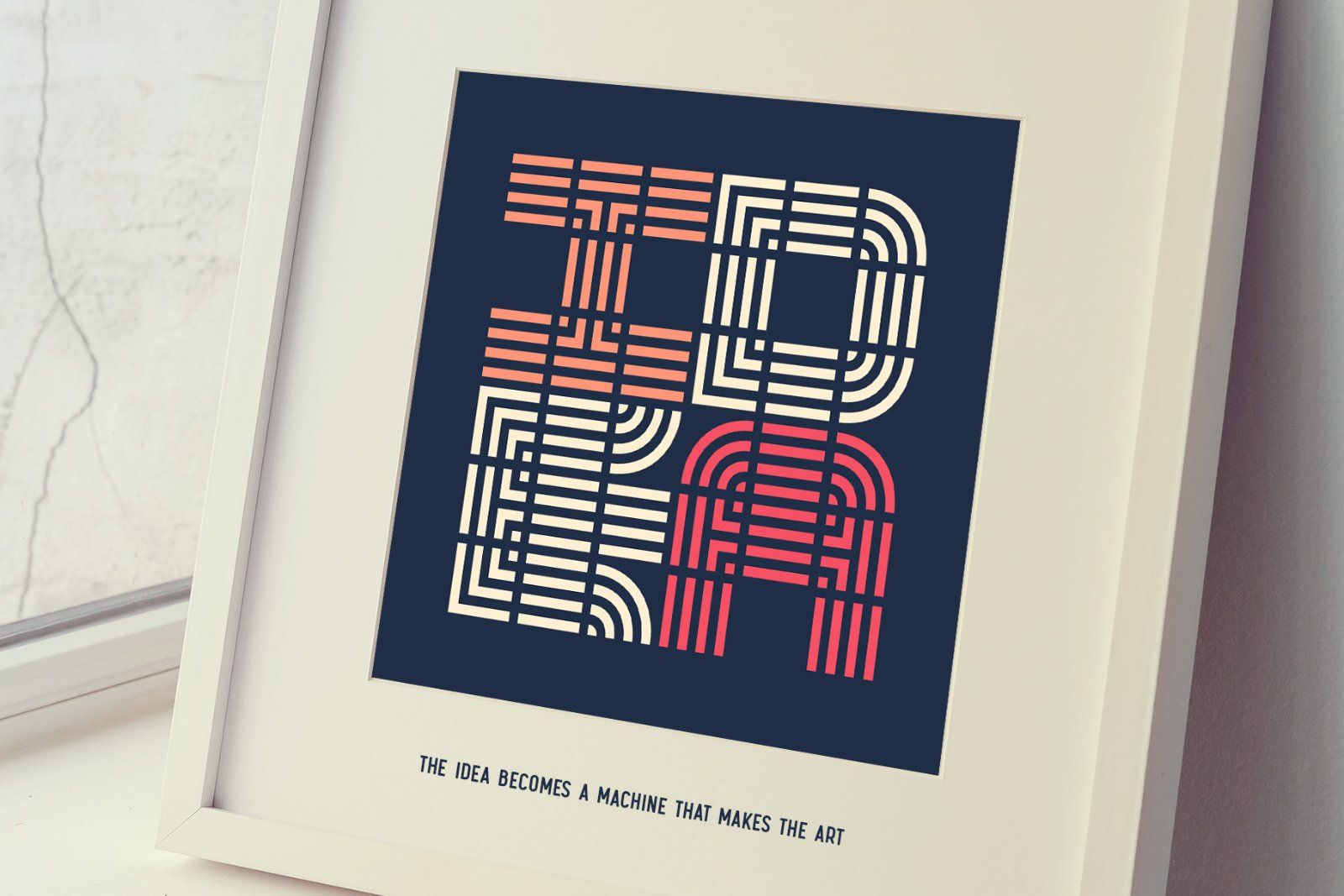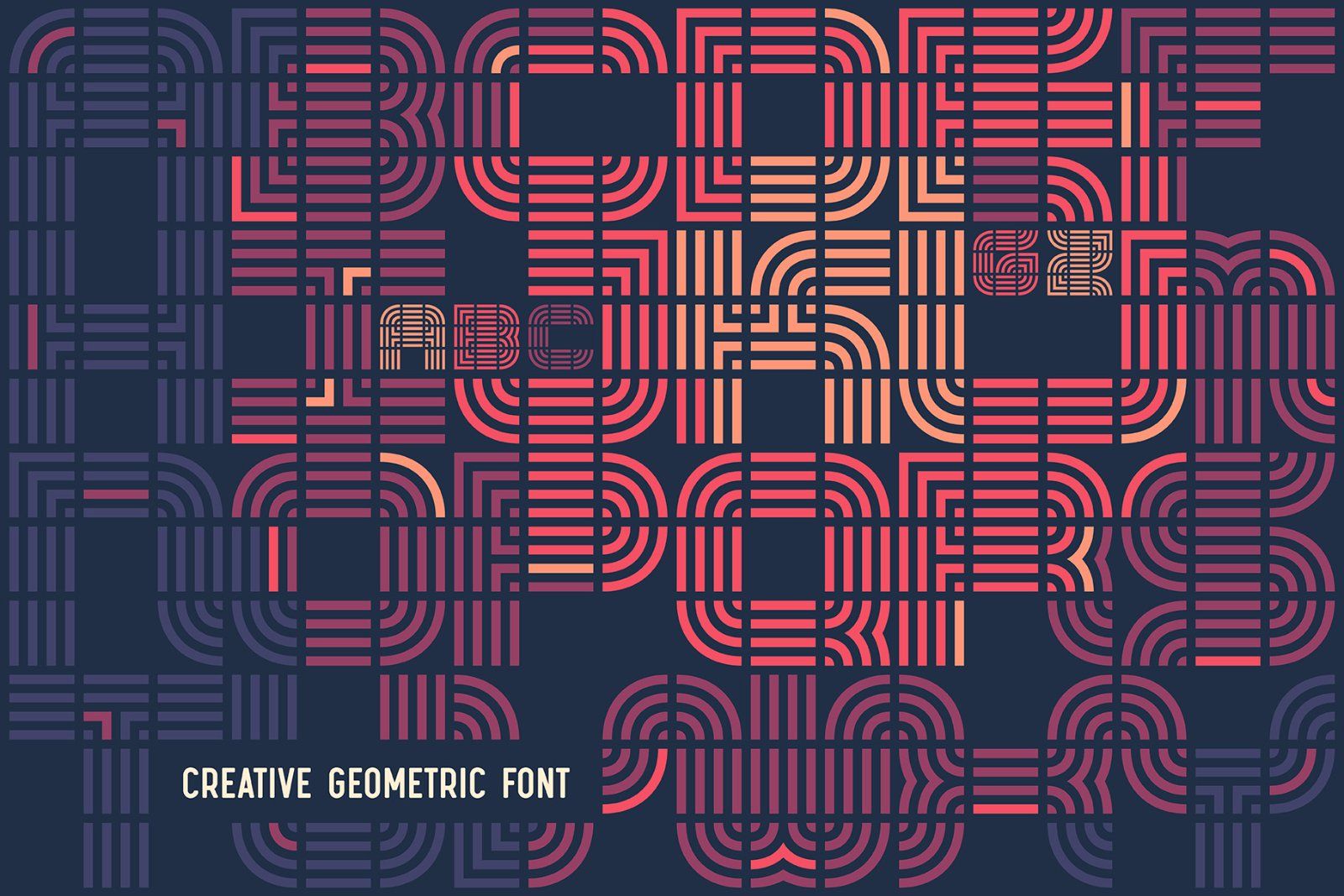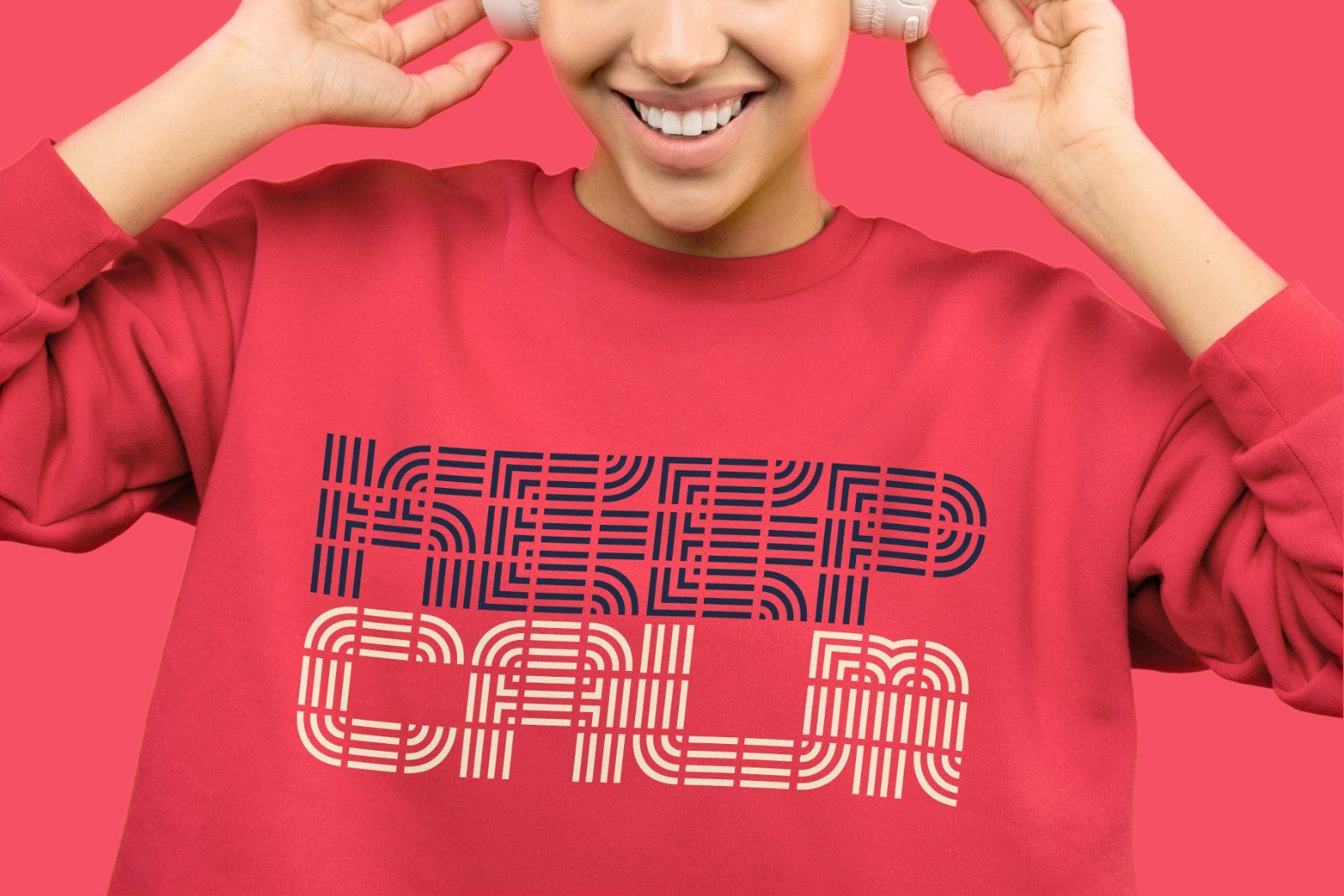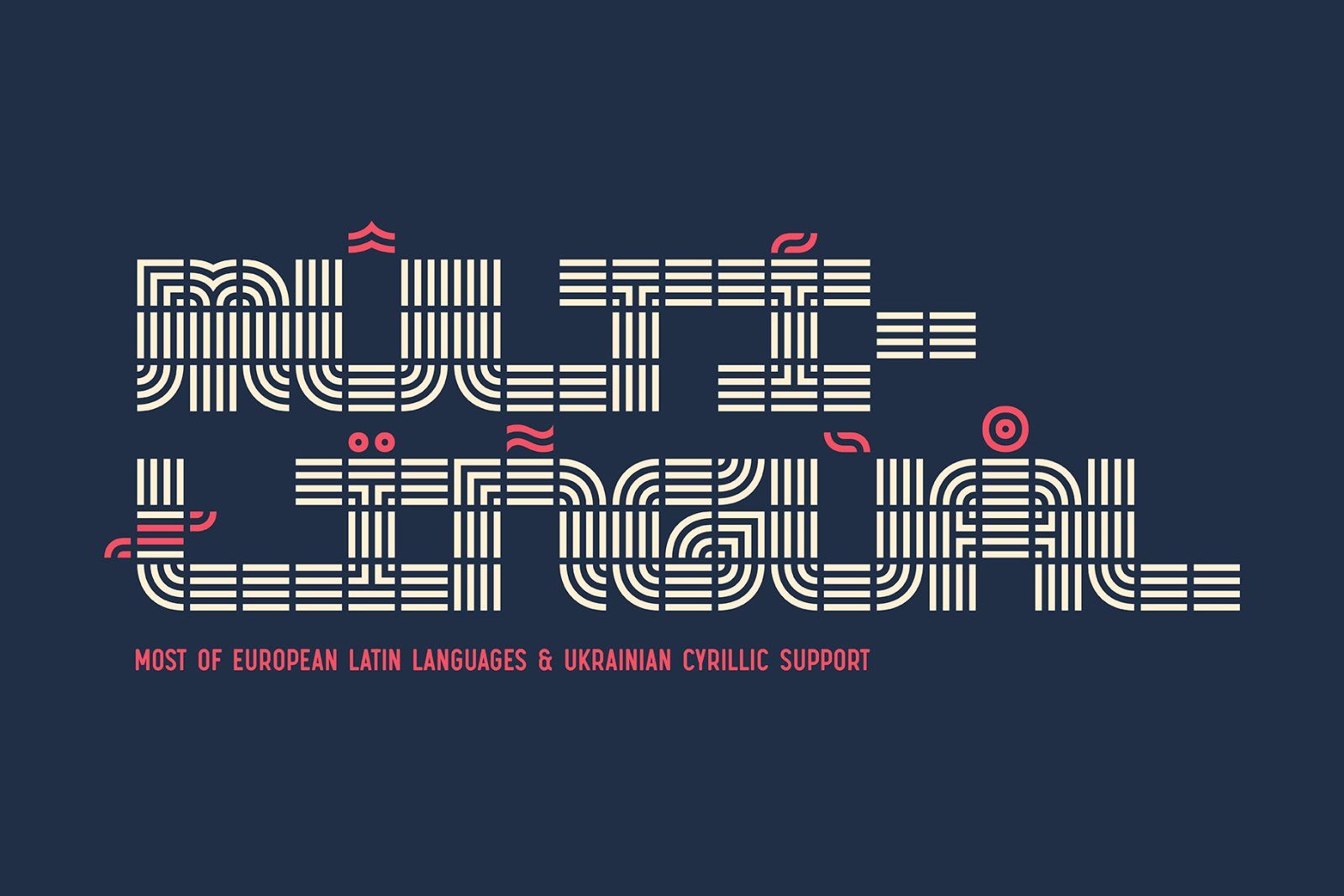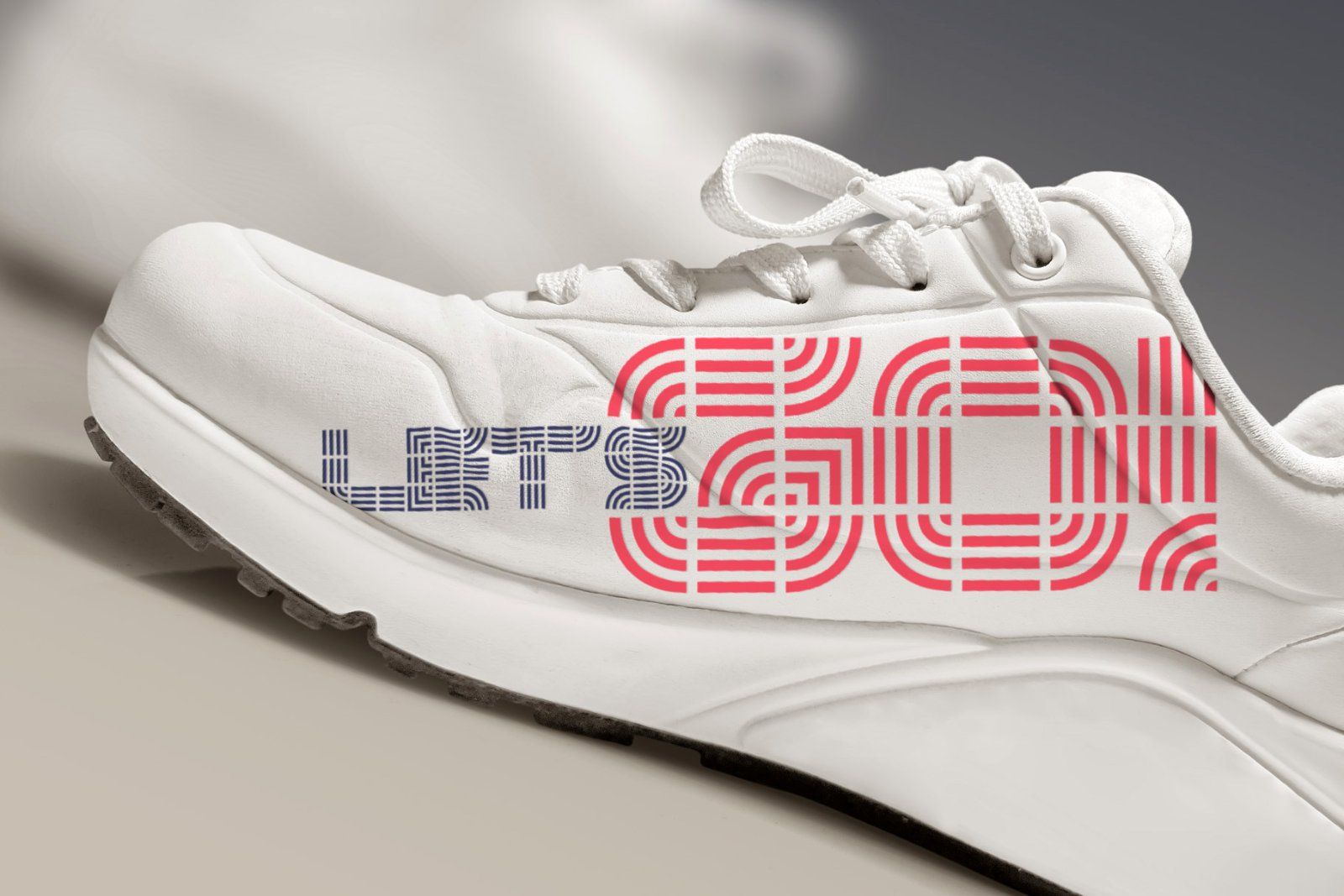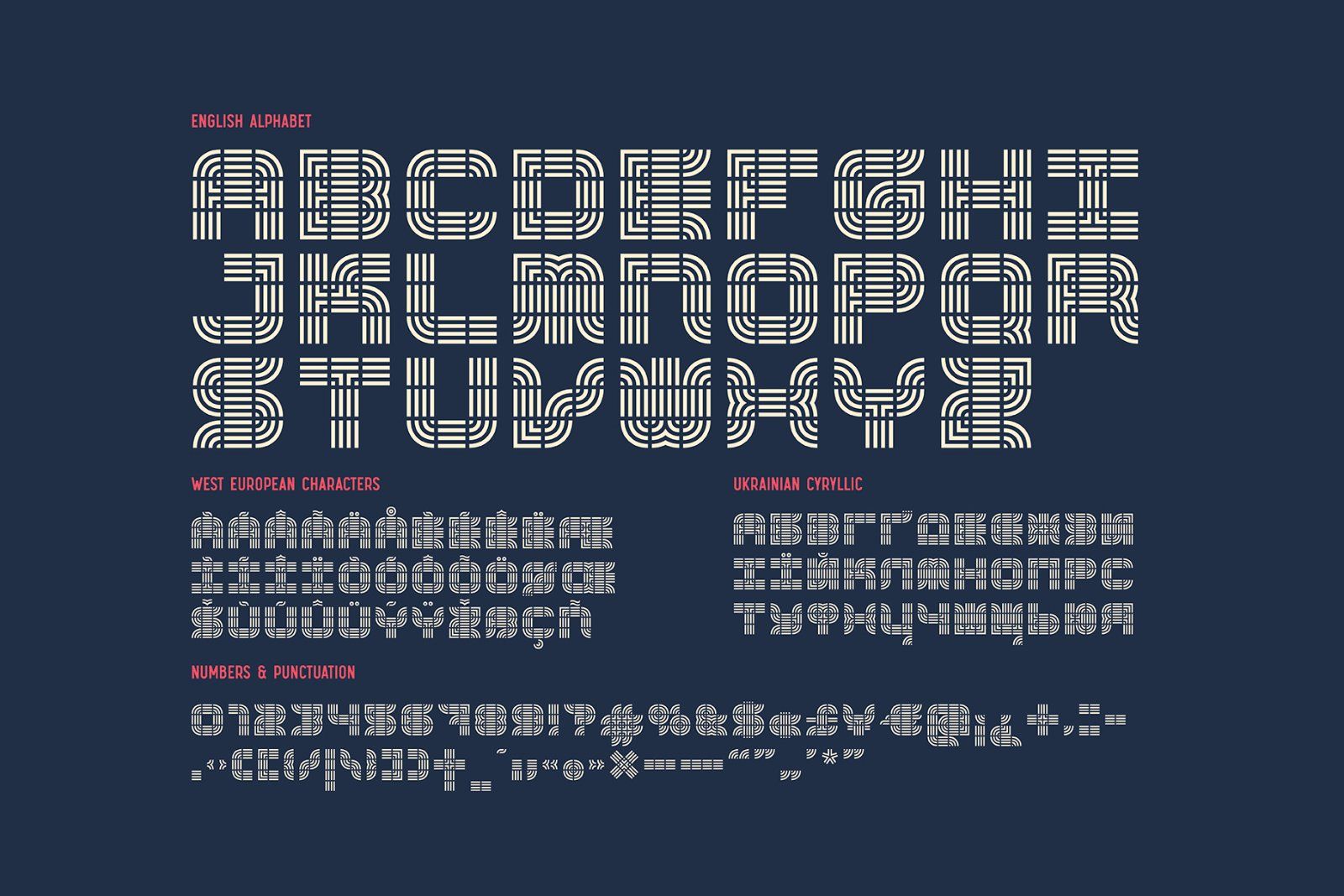
Hi there, introducing an abstract font named Dash Grid. It's a geometric display typeface made of square dashed blocks. Dash Grid font supports most of the European Latin languages and includes Ukrainian Cyrillic alphabet (check out all available characters on the last screenshot).